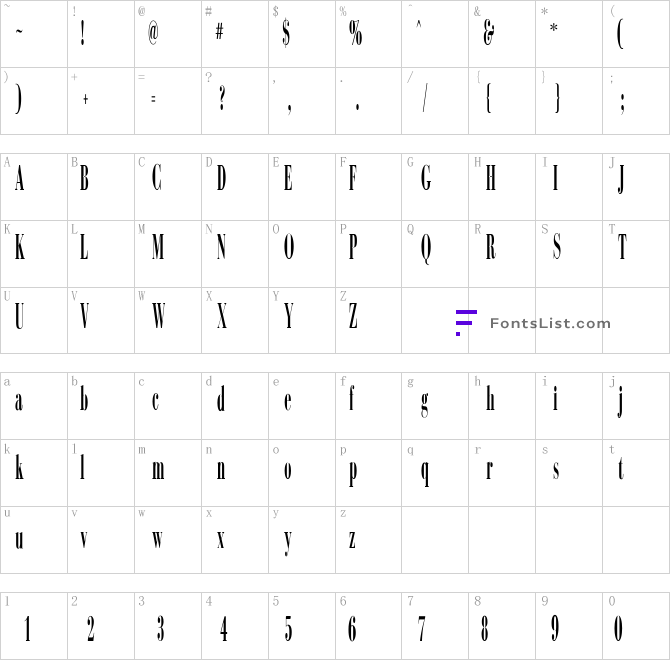
- Font Name:CampanileFLF
CampanileFLF.ttf is a very beautiful artistic font, CampanileFLF.ttf is widely used in the design and printing of various books and pictures,CampanileFLF.ttf has a strong visual impact,CampanileFLF.ttf is a commonly used font in newspapers, magazines and books, and is used in posters, e-commerce Poster design, store design, logo design, font design and other fields.CampanileFLF.